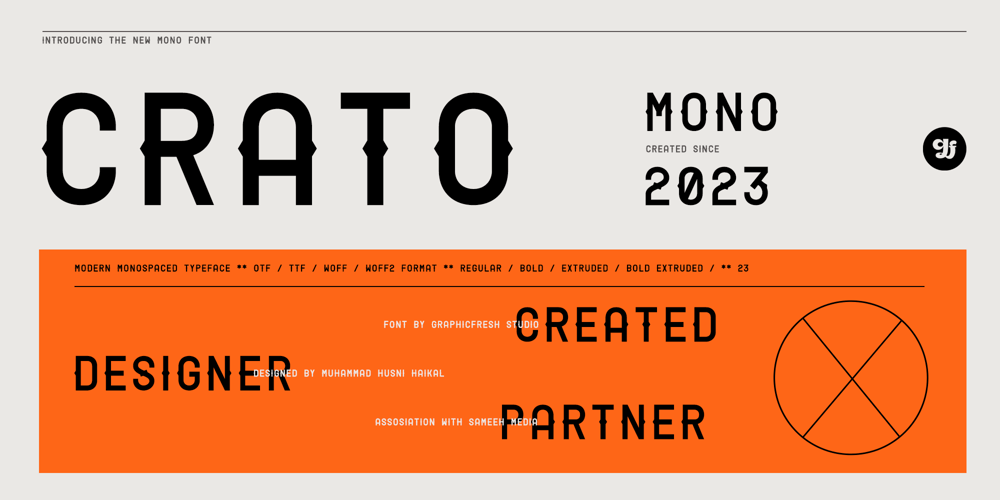
Crato Mono
Crato Mono font
Crato Mono Font Family was designed by Muhammad Husni Haikal and published by Graphicfresh. Crato Mono contains 4 styles and family package options. Discover the perfect blend of classic and modern design with our versatile monospaced font. With its timeless appeal and sans serif style, this font effortlessly captures both the vintage charm and contemporary aesthetics.